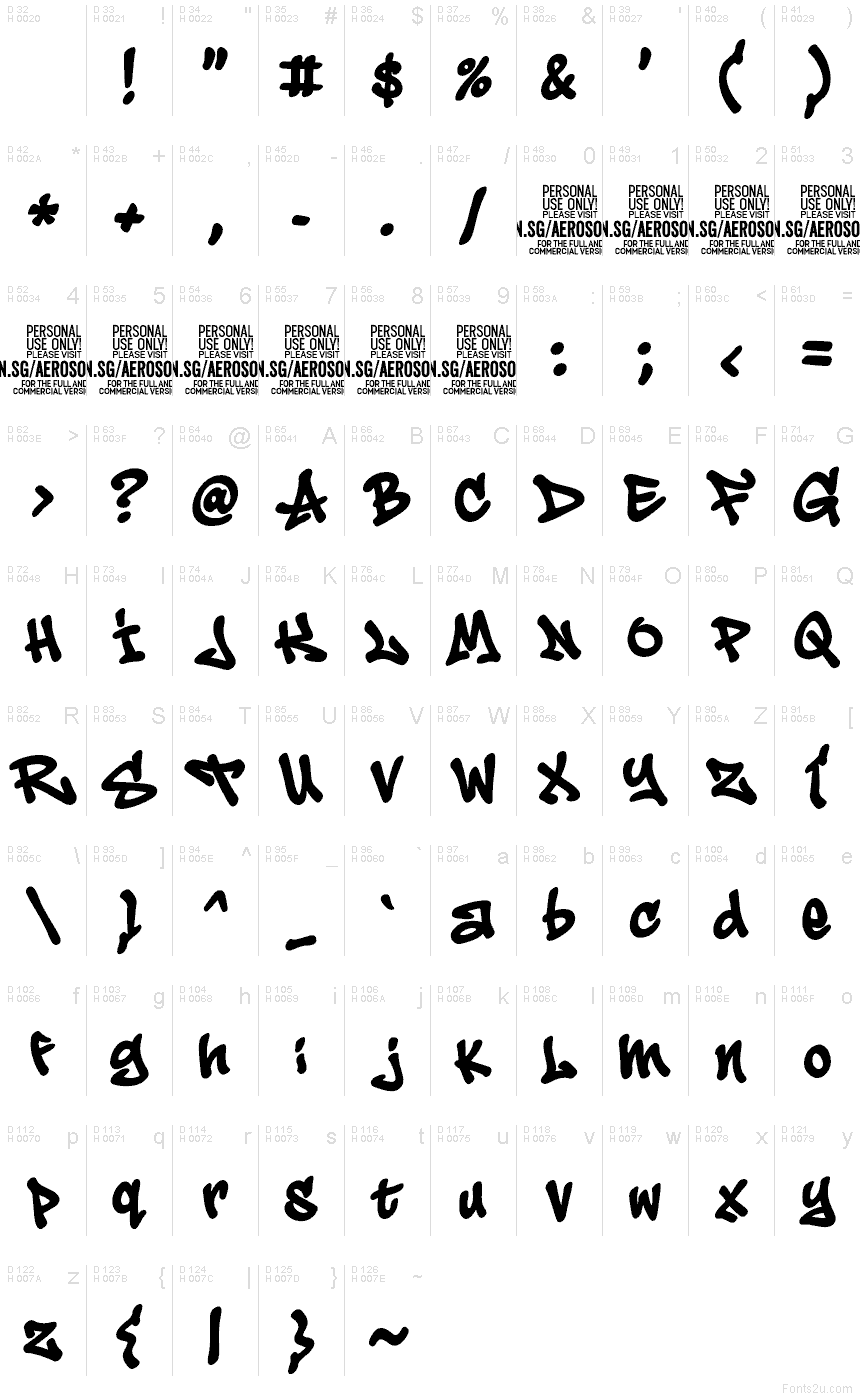
Aerosoldier Basic PERSONAL USE Regular
Aerosoldier Basic font by Mans Greback is a free graffiti tag typeface. Part of the Aerosoldier family, it hits with thick, inky strokes and fast, looped motion that feels freshly sprayed. The Basic cut keeps the letterforms legible while hinting at drips and splatter, so you get raw attitude without losing clarity.
Using Aerosoldier Basic, you can push energy into album art, streetwear logos, skate decks, event posters, YouTube thumbnails, and sticker packs. Its tight rhythm holds together even in noisy layouts, and the soft, sprayed edges add tactile grit. Pair this free font with a plain grotesk for body copy, and set headlines big with snug tracking to amplify the tag-like punch.